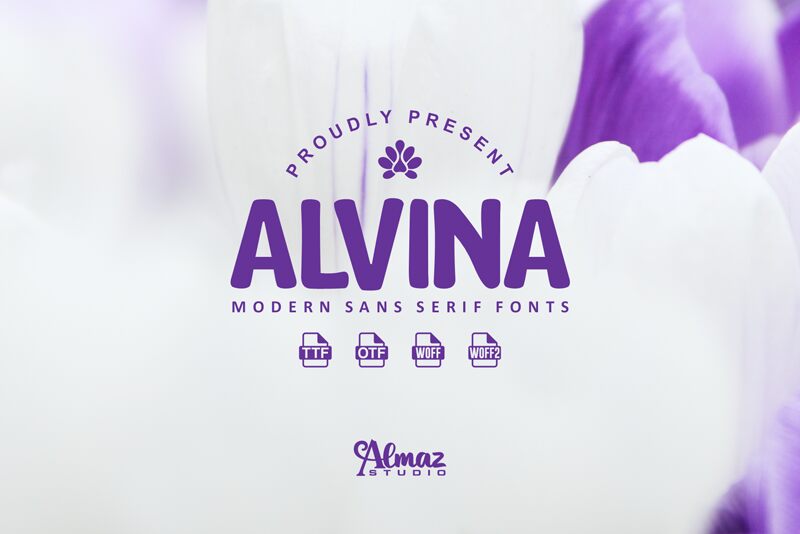
Alvina_Demo Regular
Alvina, a captivating display font designed by Almaz Studio, exudes a bold and modern charm. With its distinctive letterforms and striking contrast, this typeface commands attention, evoking a sense of confidence and sophistication. The clean, geometric lines and subtle curves create a harmonious balance, making Alvina a visually compelling choice for a variety of design applications.
Alvina's versatility shines through, making it a versatile option for projects ranging from striking display typography to impactful branding and packaging designs. Its strong personality and legibility make it a suitable choice for headlines, poster designs, and attention-grabbing typographic compositions. Alvina's adaptability allows designers to elevate their work with a font that seamlessly bridges the gap between elegance and modernity.